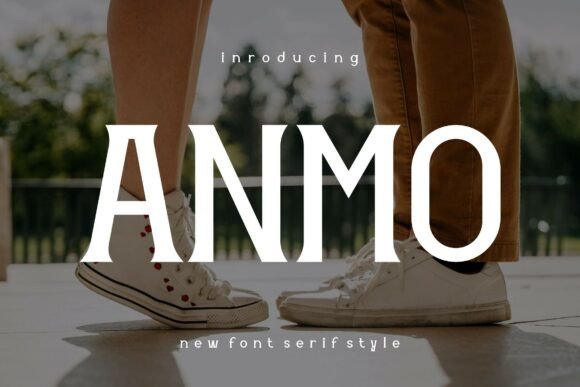
I still remember the frustration of working on a project, pouring my heart and soul into every detail, only to be held back by one thing: the font. It was a client’s request for a bold, yet elegant look that would make their brand stand out. I scoured the internet, tried countless combinations, but nothing seemed quite right. That was until I stumbled upon ANMO Font.
ANMO is a modern serif typeface that blends sharp elegance with contemporary style. With high contrast strokes and refined curves, ANMO exudes confidence and sophistication—perfect for editorial design, branding, headlines, and social media. Its unique, slightly vintage serif cuts give your text character while maintaining clean readability. Ideal for projects that aim to be both bold and timeless, ANMO is a stylish choice for designers who want their typography to stand out.
An Honest Review of ANMO Font
- 💯 High contrast strokes that add a touch of sophistication to any design
- 🔥 Refined curves that make the font feel elegant and modern
- 📚 Unique serif cuts that give the text a character all its own
- 👍 Clean readability that makes it perfect for body text and headlines alike
While ANMO Font is an excellent choice for many design projects, it’s not without its quirks. For example:
- 🤔 Limited use in very small sizes: ANMO’s high contrast strokes can make it difficult to read in very small sizes.
- ⚠️ Not ideal for body text: While ANMO is readable, it’s not the best choice for long blocks of body text. It’s better suited for headlines and titles.
A Practical Guide to Using ANMO Font
The Designer Inspiration Behind ANMO Font
ANMO Font was designed with the modern designer in mind. Its creator, a talented typographer, wanted to create a font that would blend sharp elegance with contemporary style. The result is a font that’s both bold and timeless, perfect for designers who want their typography to stand out.
Q: What is ANMO Font?
A: ANMO Font is a modern serif typeface that blends sharp elegance with contemporary style.
Q: What is ANMO Font best used for?
A: ANMO Font is ideal for editorial design, branding, headlines, and social media.
Q: Can I use ANMO Font for body text?
A: While ANMO Font is readable, it’s not the best choice for long blocks of body text. It’s better suited for headlines and titles.
Q: Is ANMO Font easy to read?
A: Yes, ANMO Font has clean readability that makes it easy to read, even in smaller sizes.